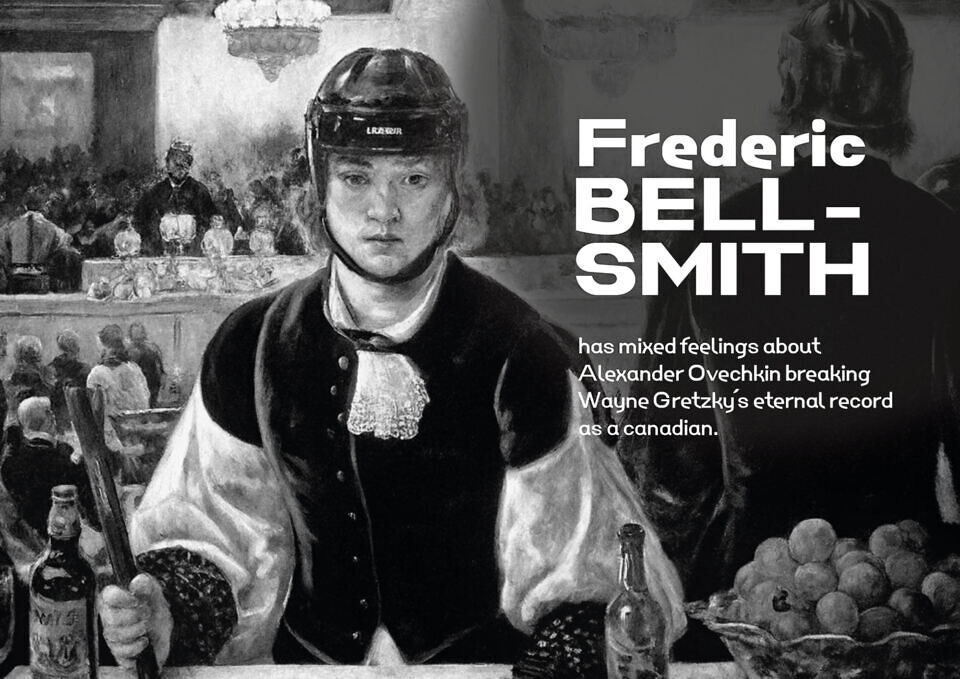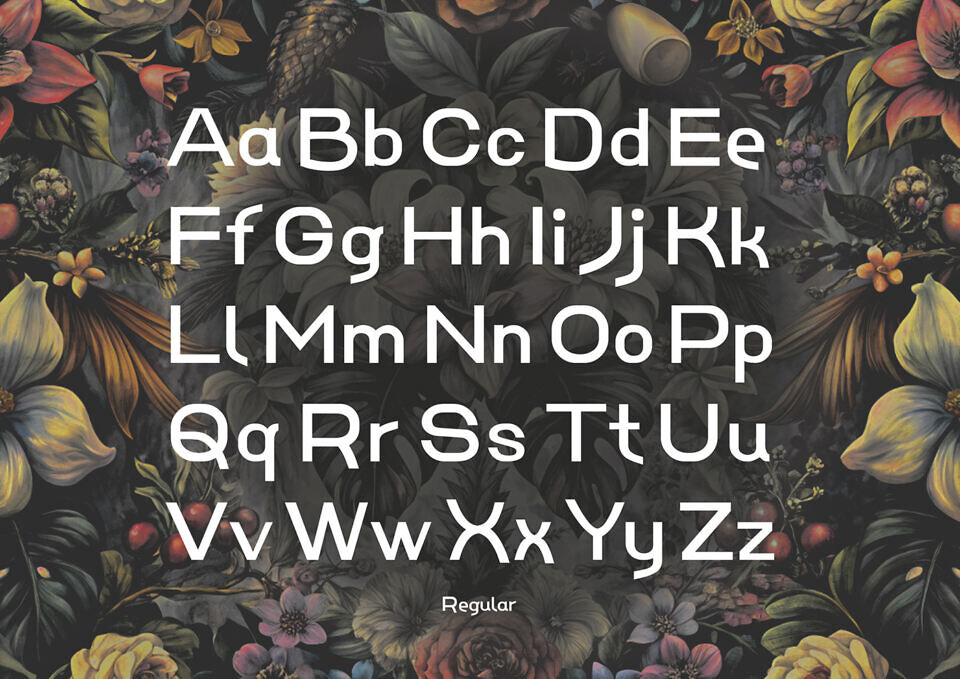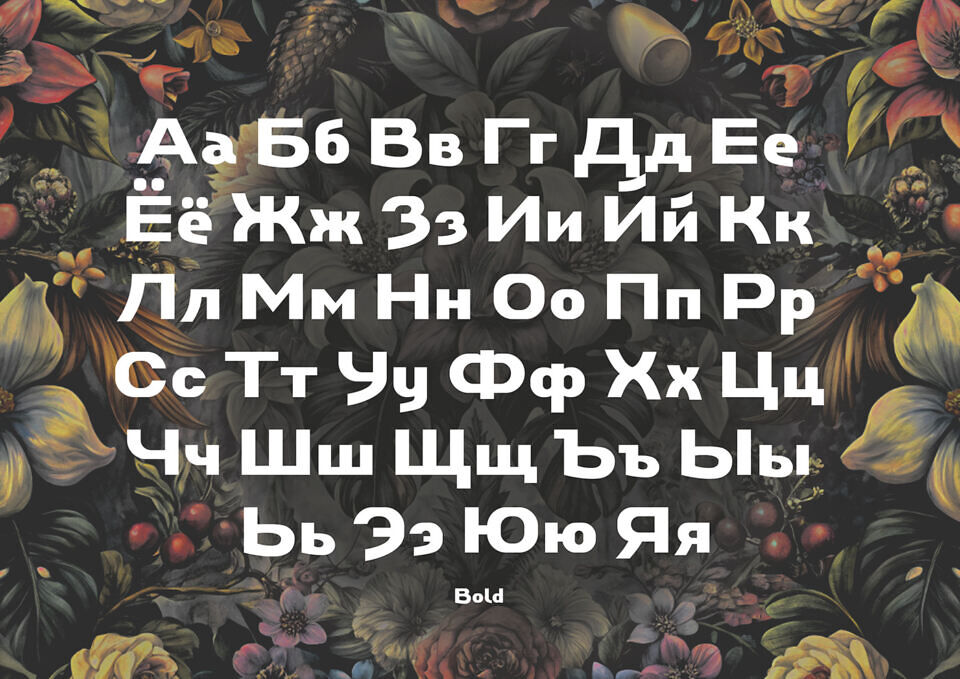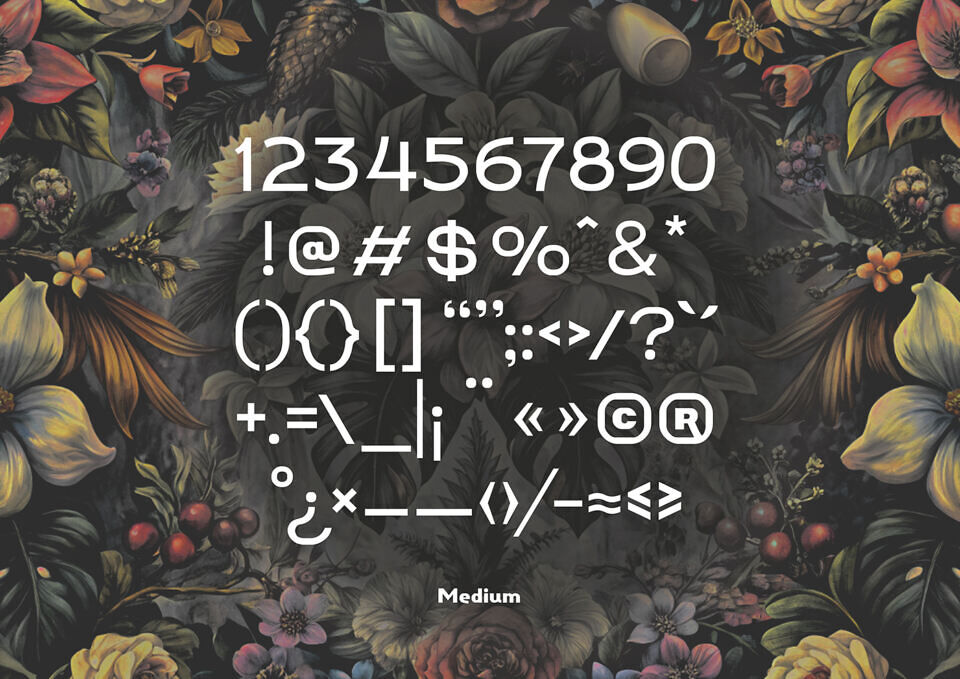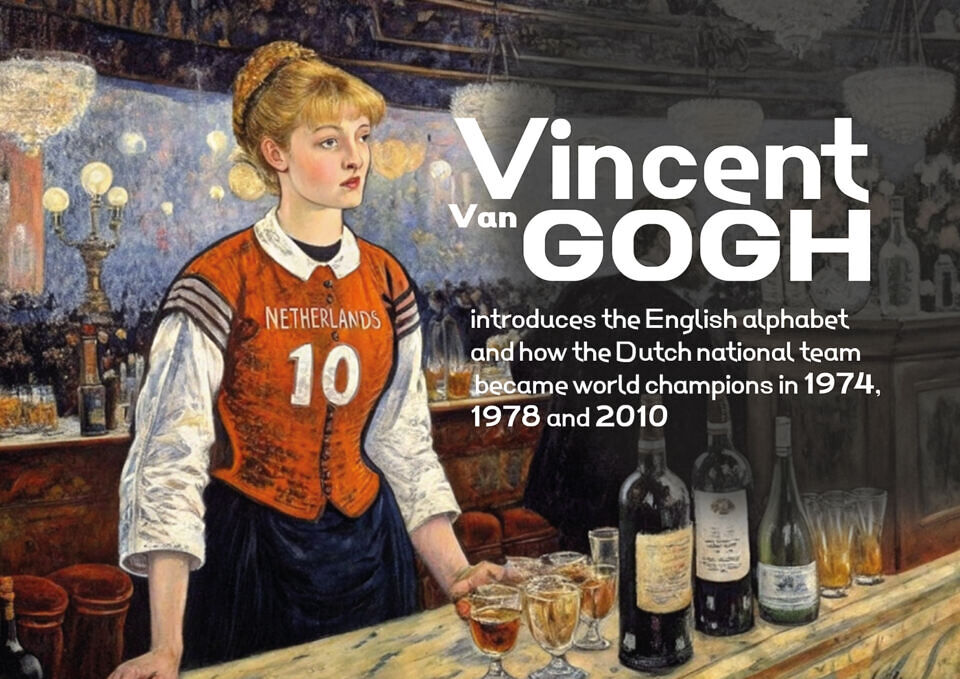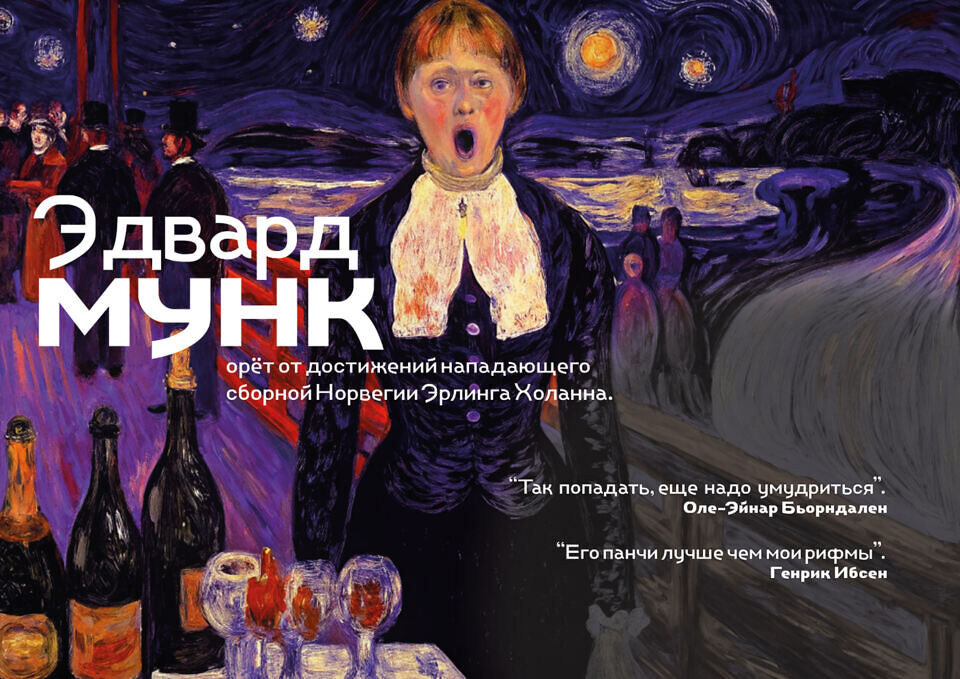
Folies Bergere Font
Folies Bergère Font is an elegant, Art Nouveau-inspired typeface that captures the opulent charm of vintage Parisian cabaret culture. Its intricate, flowing letterforms and decorative flourishes make it perfect for luxurious branding, invitations, and editorial designs.
With a nod to early 20th-century aesthetics, Folies Bergère offers multiple weights for versatility, blending sophistication with readability. Ideal for designers seeking a refined, nostalgic vibe, this font adds timeless allure to any project.
Designed by: Dimitri Antonov